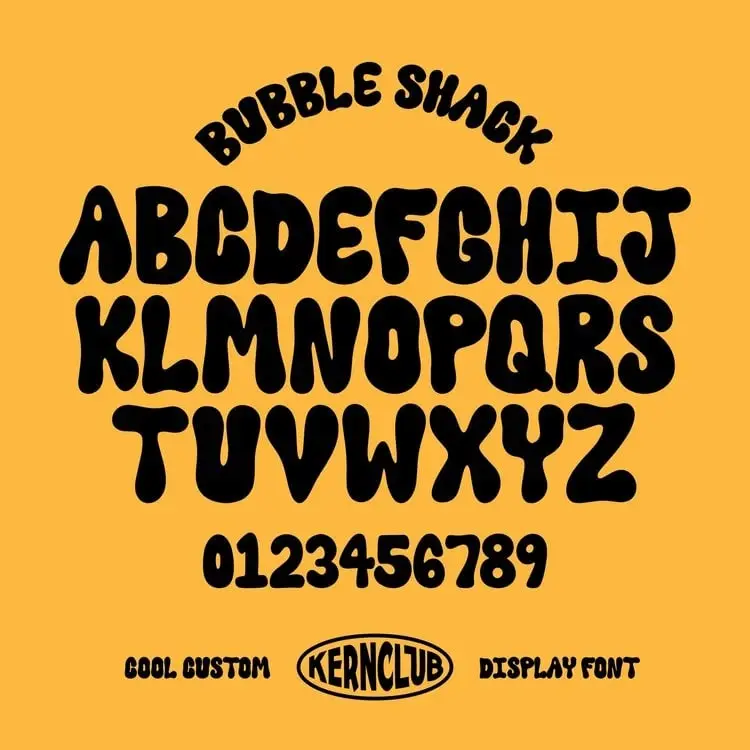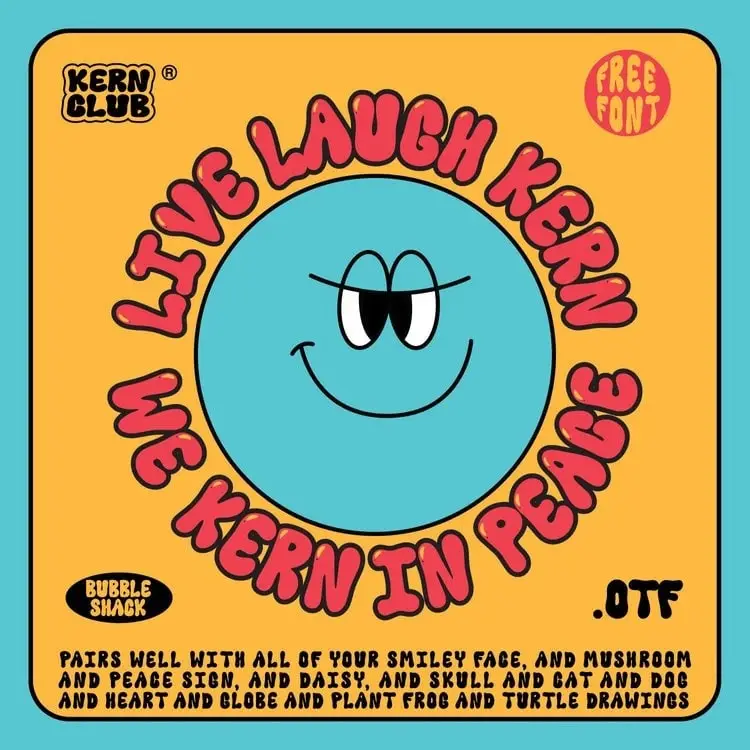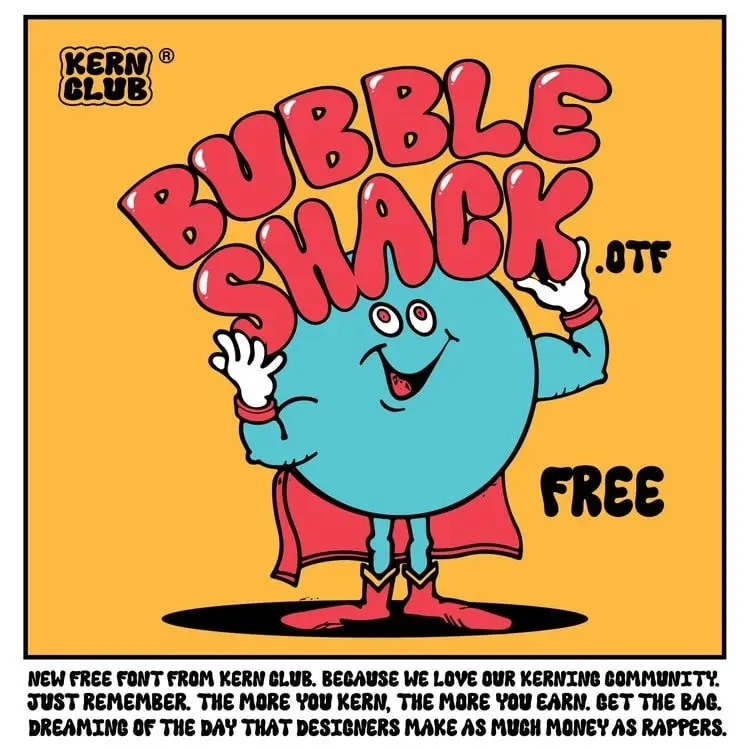
Bubble Shack Font
The Bubble Shack Font is a playful and whimsical typeface that brings a sense of fun to your projects. With its rounded edges and bubbly appearance, this font is perfect for children’s books, party invitations, and any design that aims to convey joy and creativity.
• Unique rounded letterforms
• Uppercase and lowercase characters
• Ideal for branding, logos, and web design
• Great for print materials such as flyers and posters
• Use in UI designs to create a friendly atmosphere